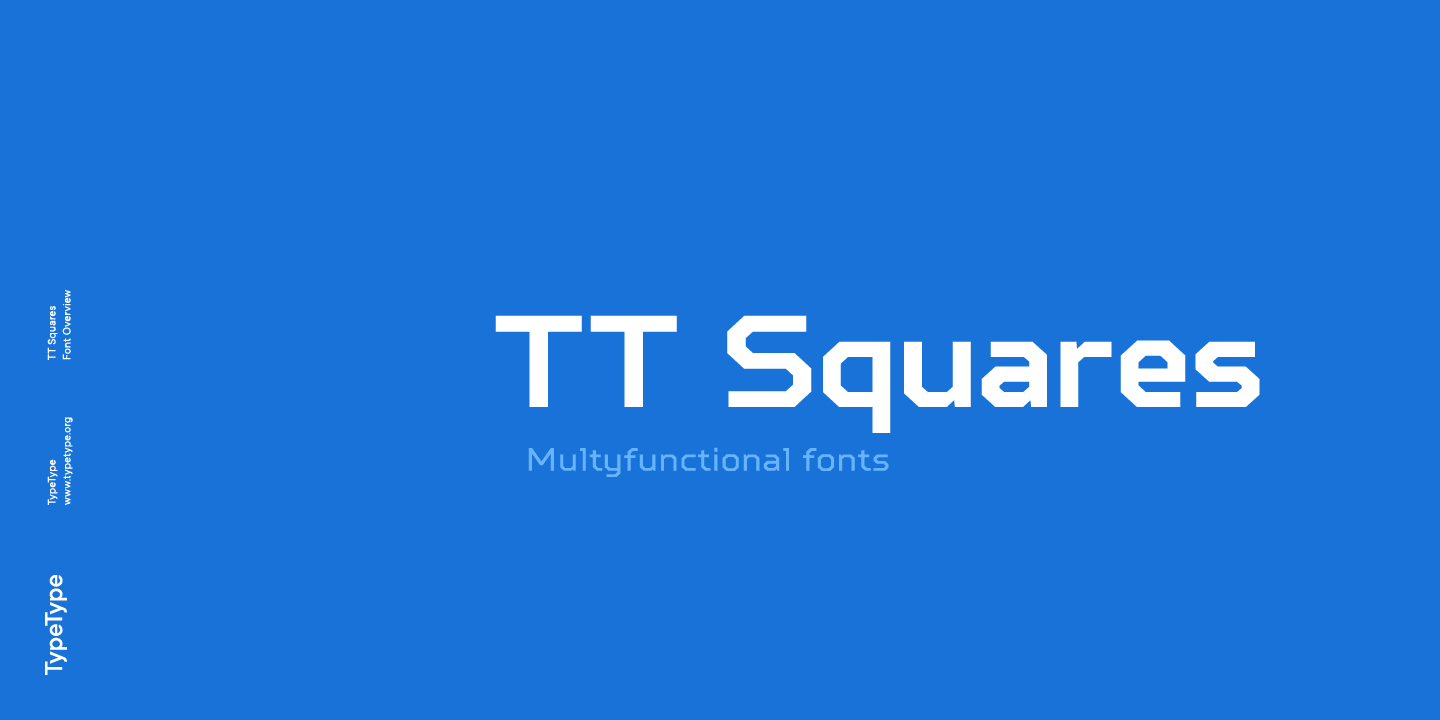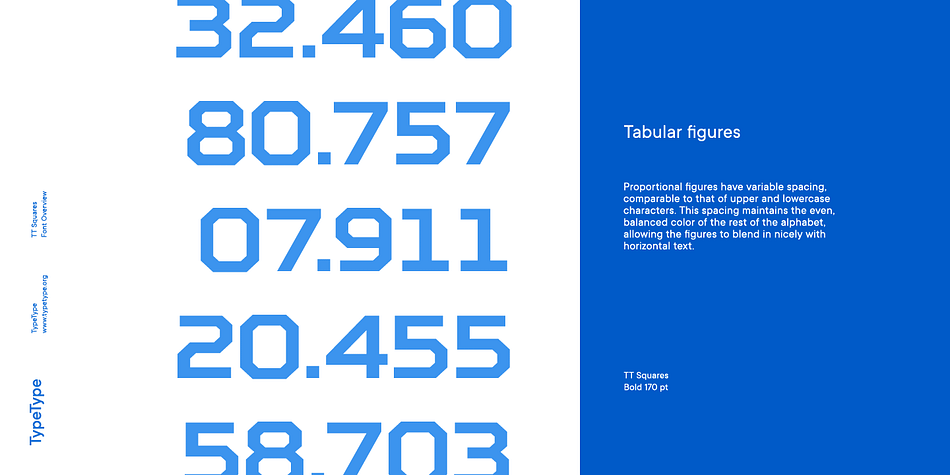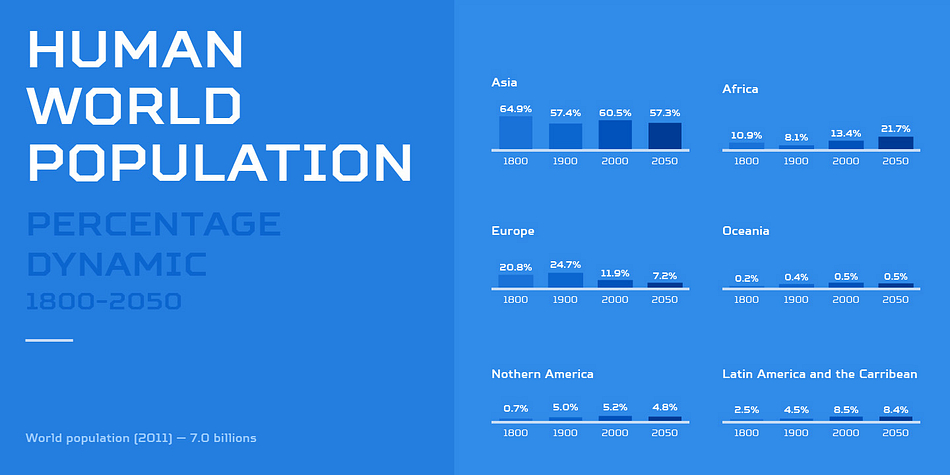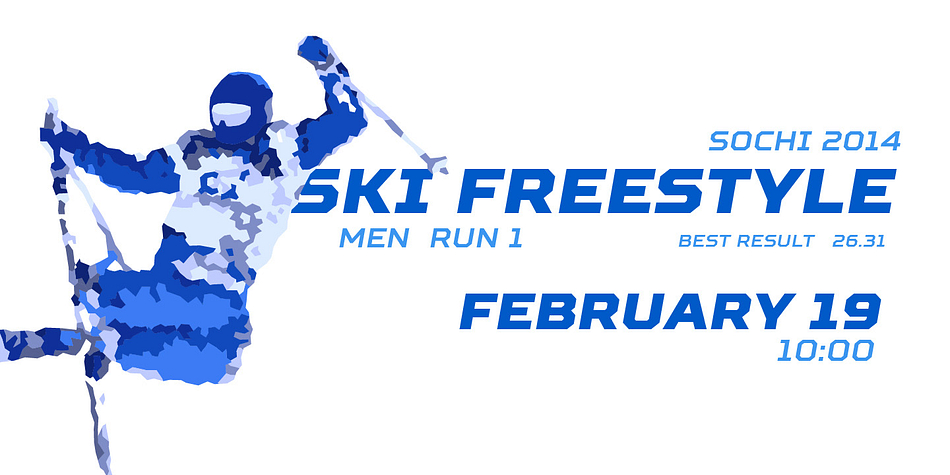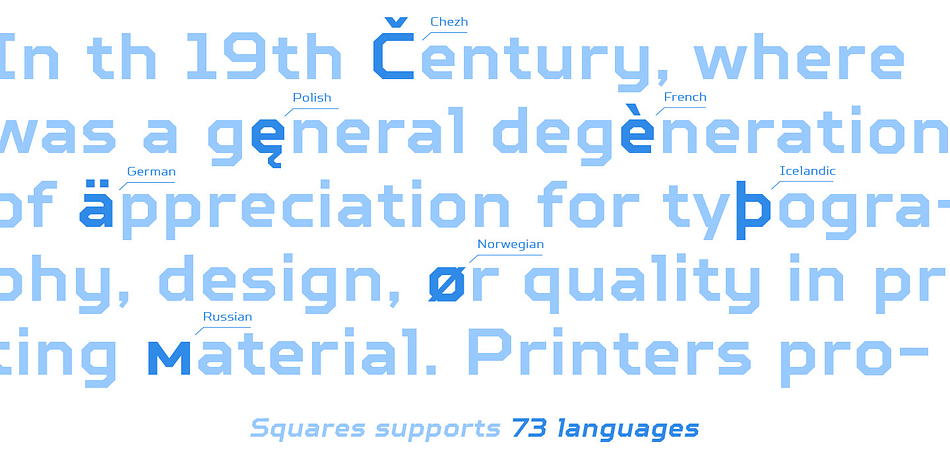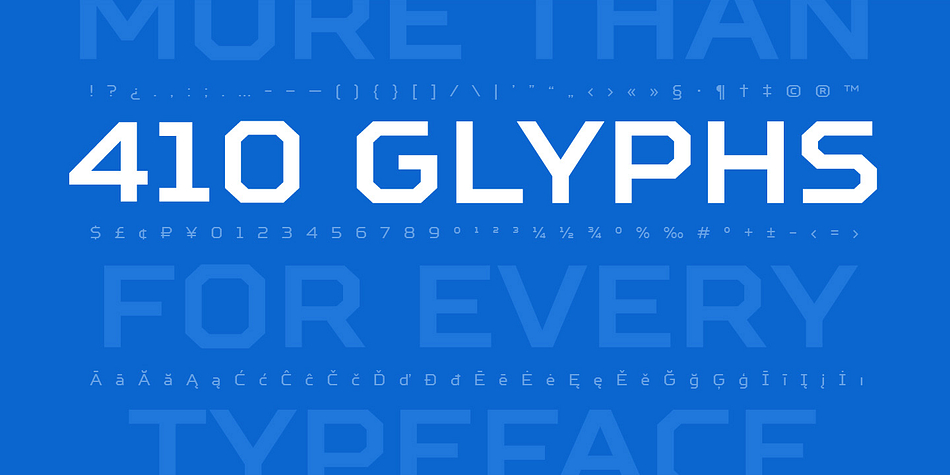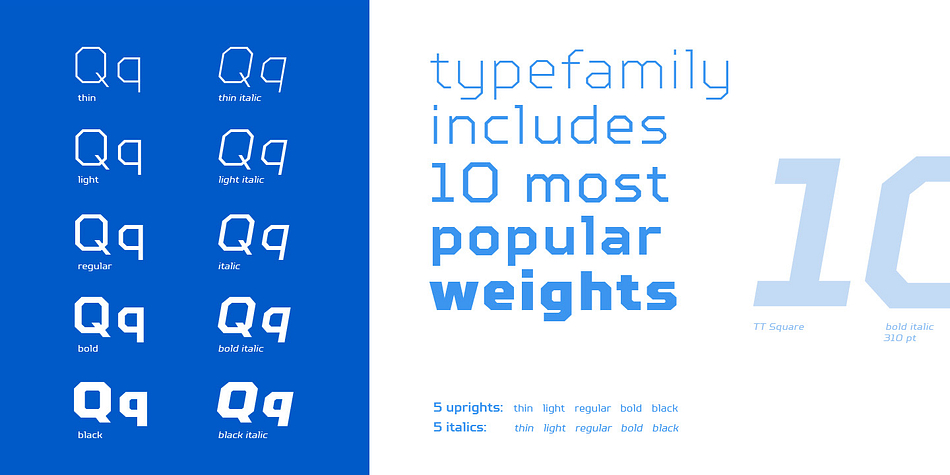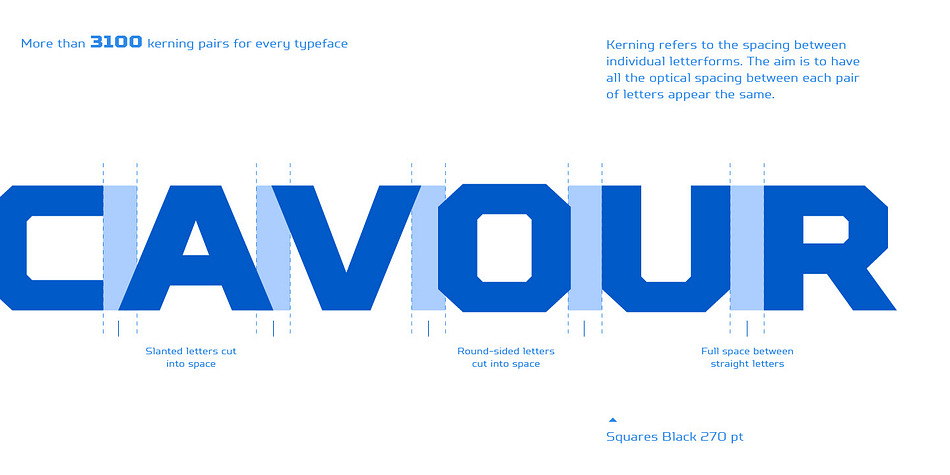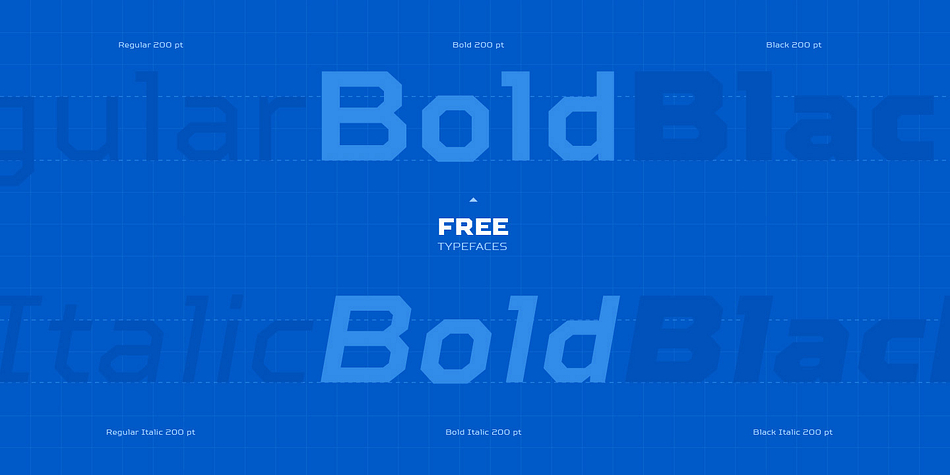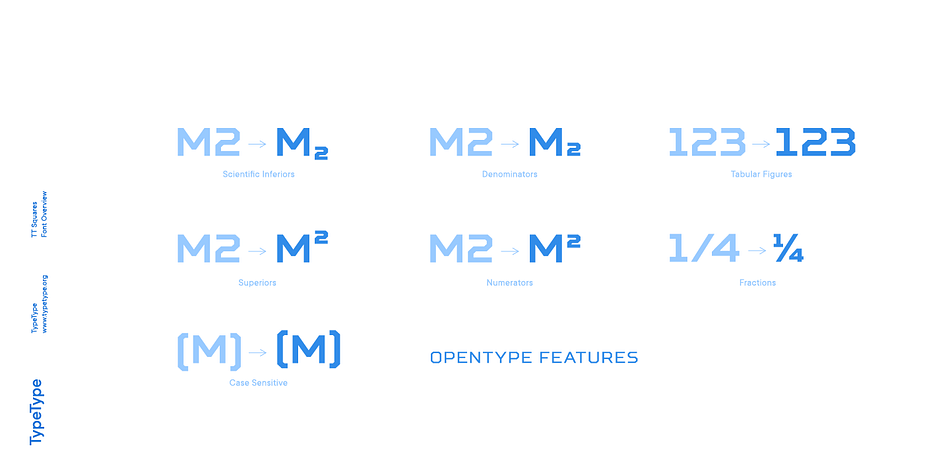
TT Squares is a sans serif font family. This typeface has ten styles and was published by Typetype.
Exclusive font family style: octagonal and simple at the same time. Squares created for infographics and statistics. This is the font that will be good to exist in the design of the future, as well as any military attributes. Most popular typefaces formula: Thin, Light, Regular, Bold, Black and Italics. Squares are ideal for short inscriptions and long text blocks.
Scope:
interfaces, infographics, statistics, army, military theme, game design, interactive, future, robots, toys, packaging, interior design, progressive design, aircraft equipment, robotics, tank building, fishing, packaging, exhibitions and events
Optimized for the websites, mobile applications, and printing materials.